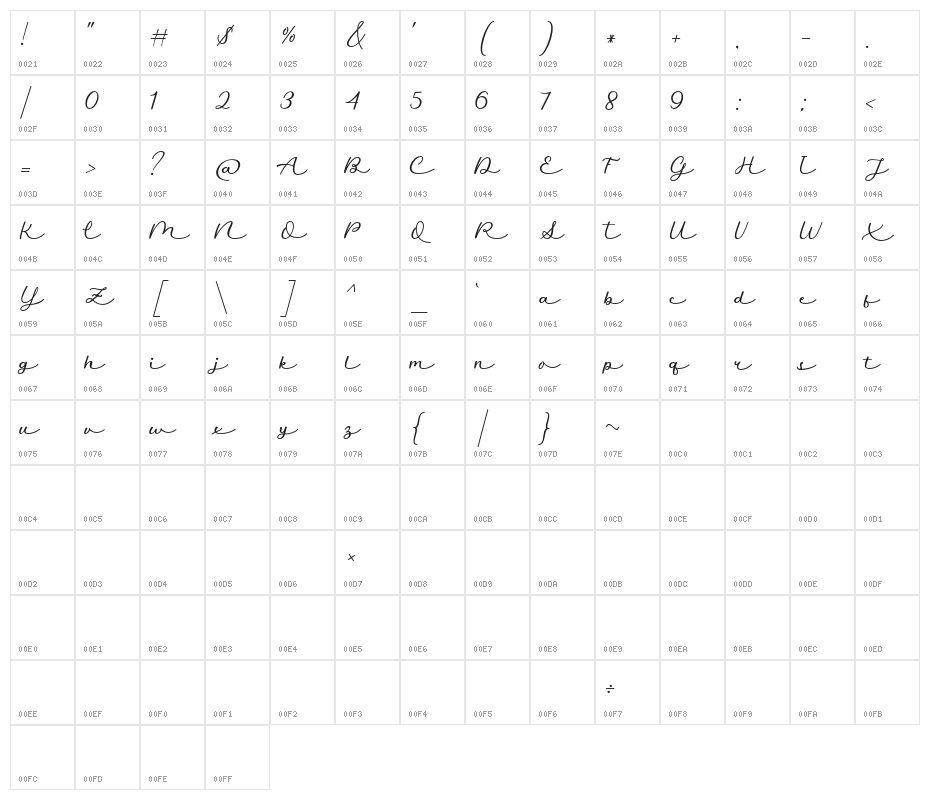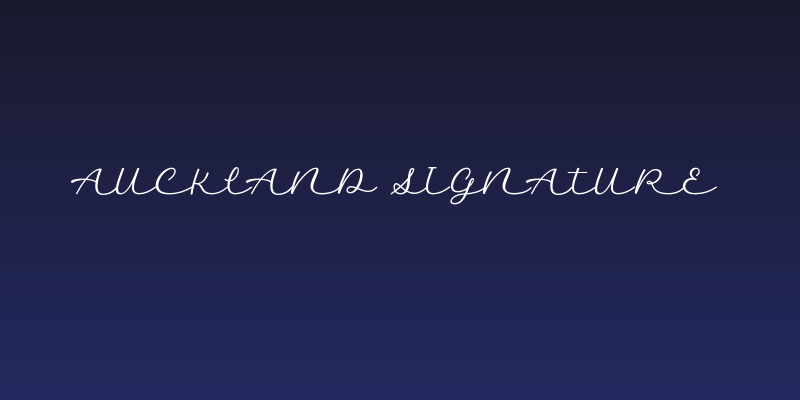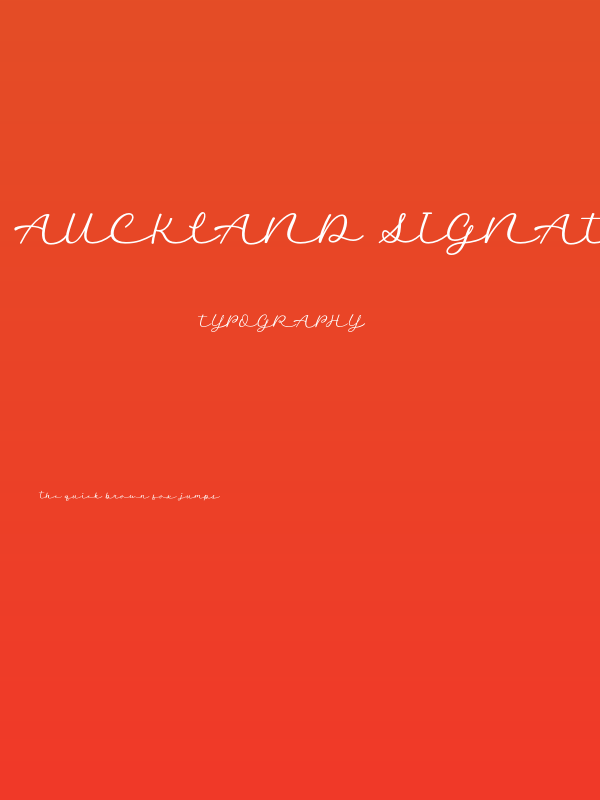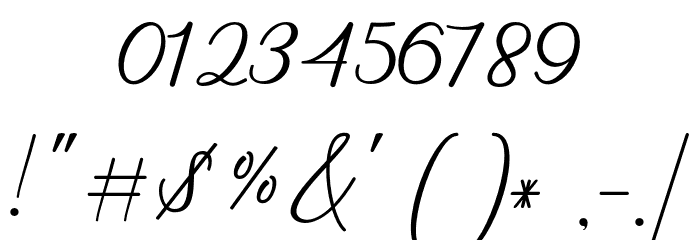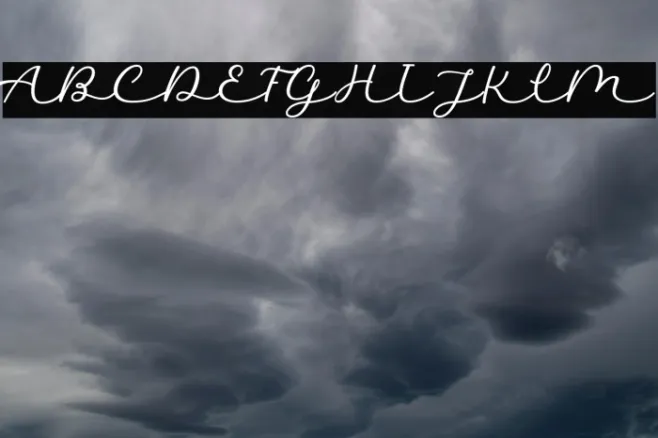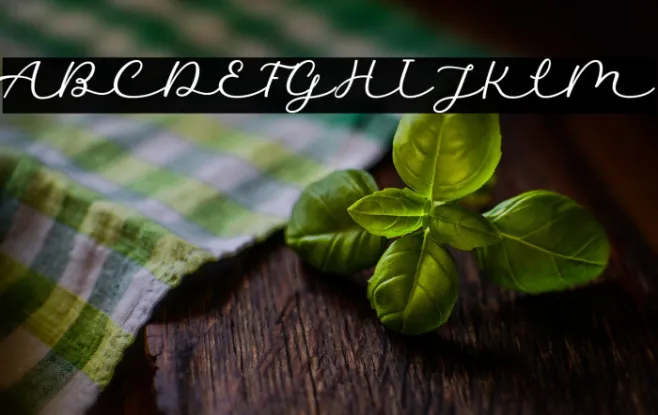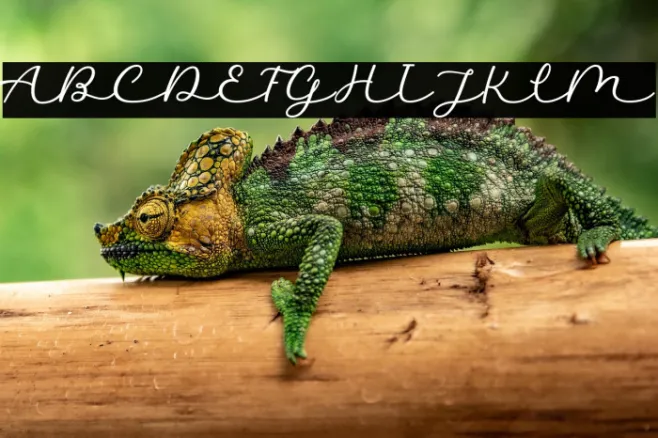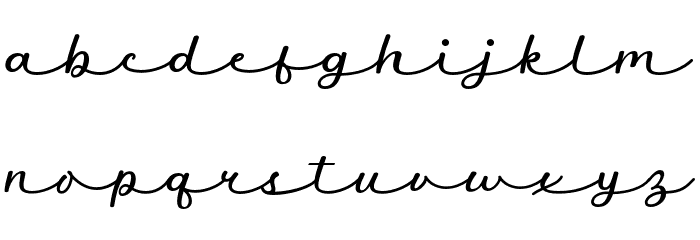
Auckland Signature Font
Auckland Signature Description
This elegant script font features smooth, flowing lines that mimic the fluidity of handwriting. Each character is carefully crafted with a consistent stroke width, creating a harmonious and sophisticated appearance. The uppercase letters are slightly more ornate, with gentle curves and loops that add a touch of flair. The lowercase letters maintain a cohesive style, with rounded forms and subtle connections between characters. Numbers and special characters are designed to match the overall aesthetic, ensuring a seamless integration into any design. This font exudes a sense of grace and refinement, making it ideal for projects that require a personal or artistic touch.
| Overall Style | Elegant, Handwritten |
| Use Case | Logos, Invitations, Personal Branding |
| Proposed Projects | Ideal for wedding invitations, personal branding, greeting cards, and elegant packaging designs. |